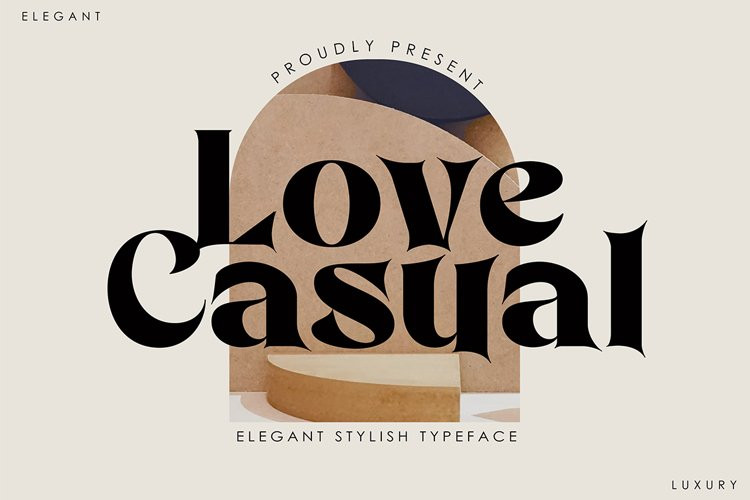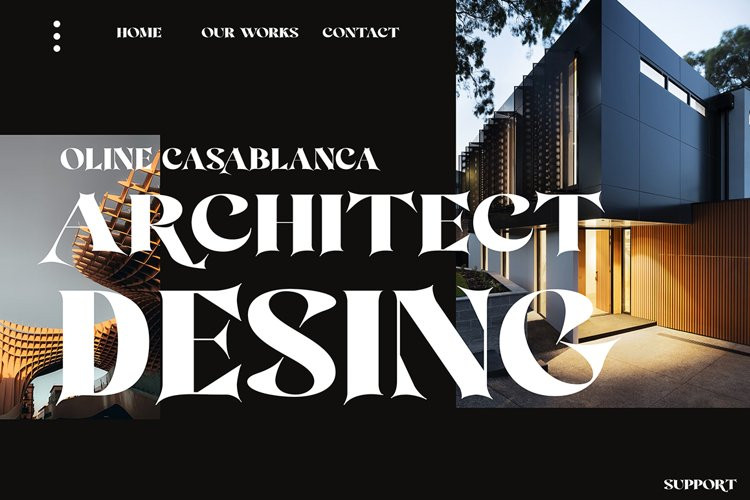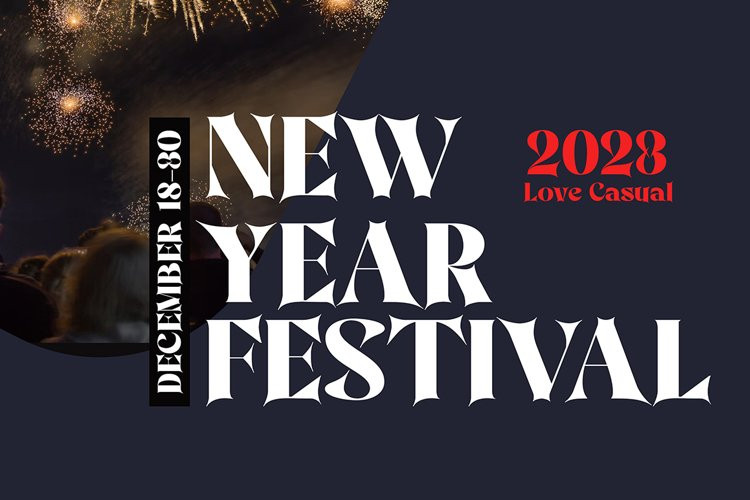
Love Casual Font
Love Casual FontIntroducing new Love Casual Serif Typefaces with lots of alternative characters, multilingual support and unique ligatures.